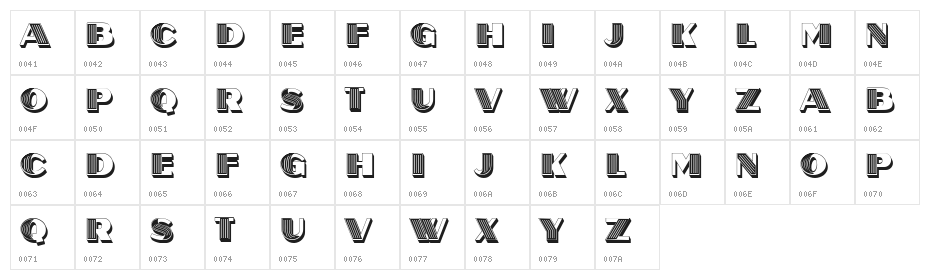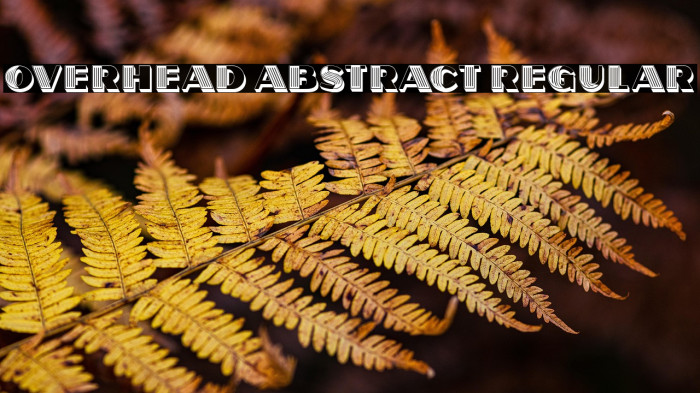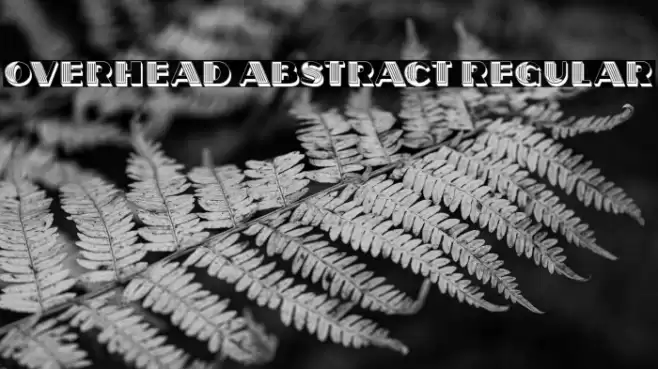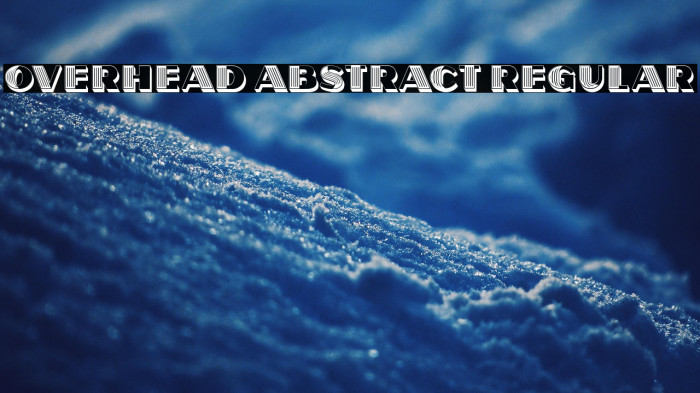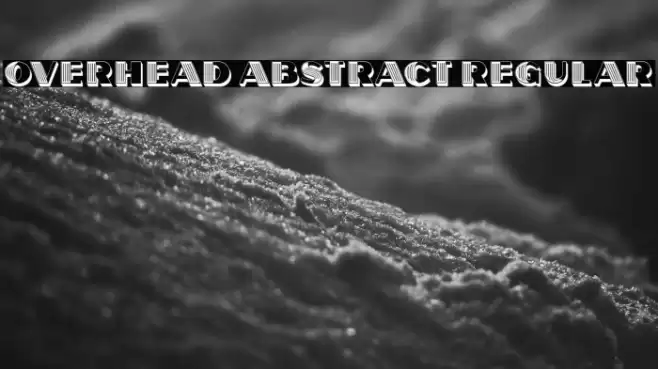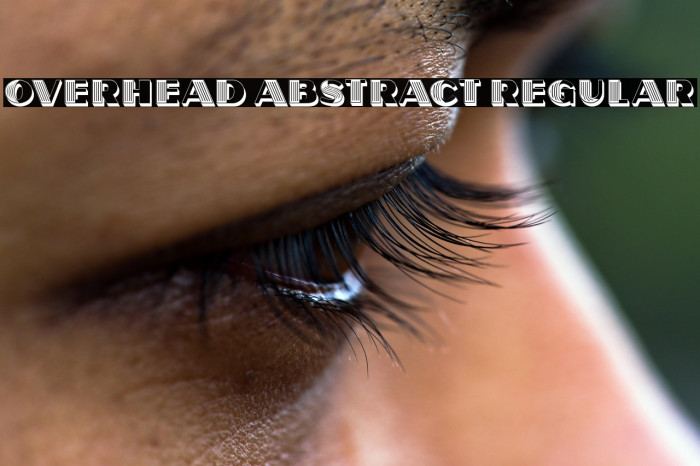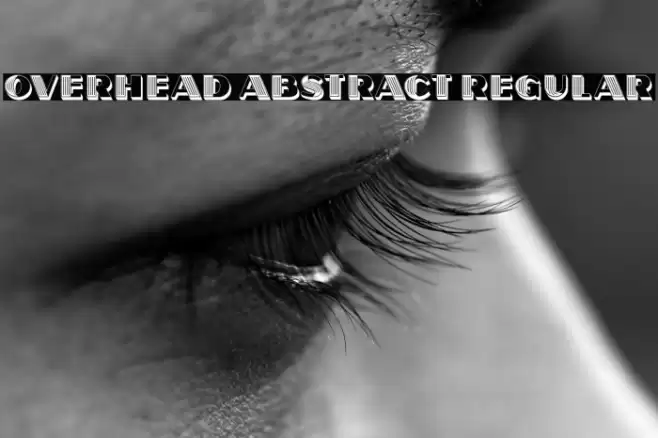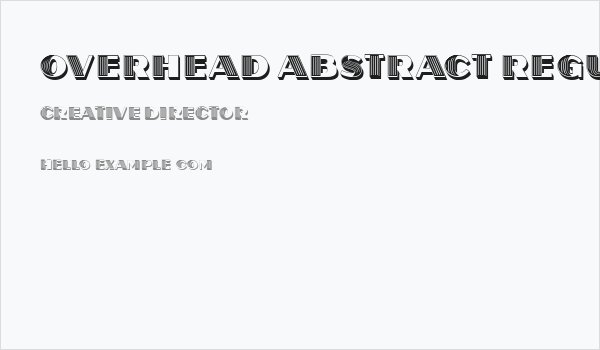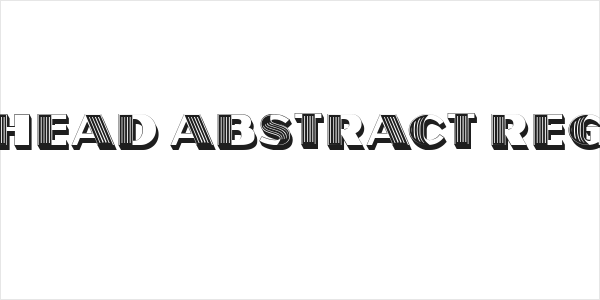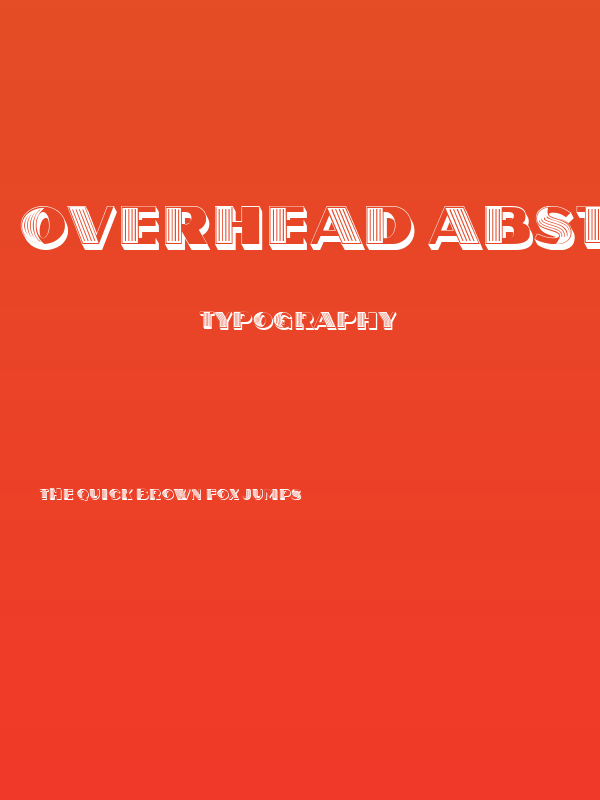
Overhead Abstract Regular Font
Overhead Abstract Regular Description
This font features a bold and striking design with a three-dimensional effect created by layered lines and shadows. Each character is crafted with precision, showcasing a unique blend of geometric and abstract elements. The uppercase letters are particularly prominent, with a strong presence that commands attention. The font's intricate detailing and layered structure make it ideal for creative and artistic projects. Its boldness is complemented by a sense of depth, making it stand out in any design. The overall style is modern and innovative, perfect for making a statement.
| Proposed Projects | Ideal for posters, logos, and branding projects that require a modern and eye-catching design. |